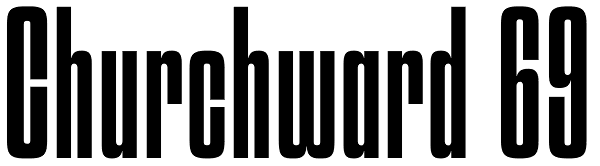
Churchward 69
Churchward 69 is a ten weight typeface family originally designed during the late 1960’s by the late type designer Joseph Churchward. From the extremely condensed Regular weight to the outlandishly heavy Ultra Black, this square sans serif makes an...